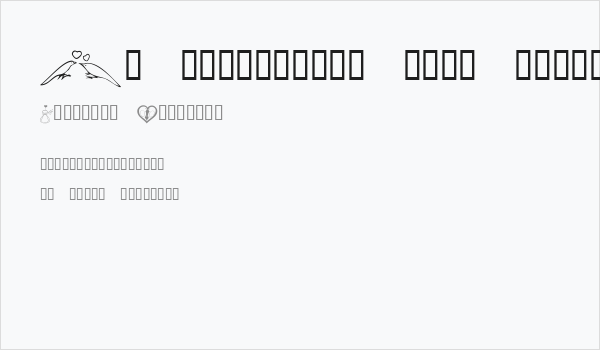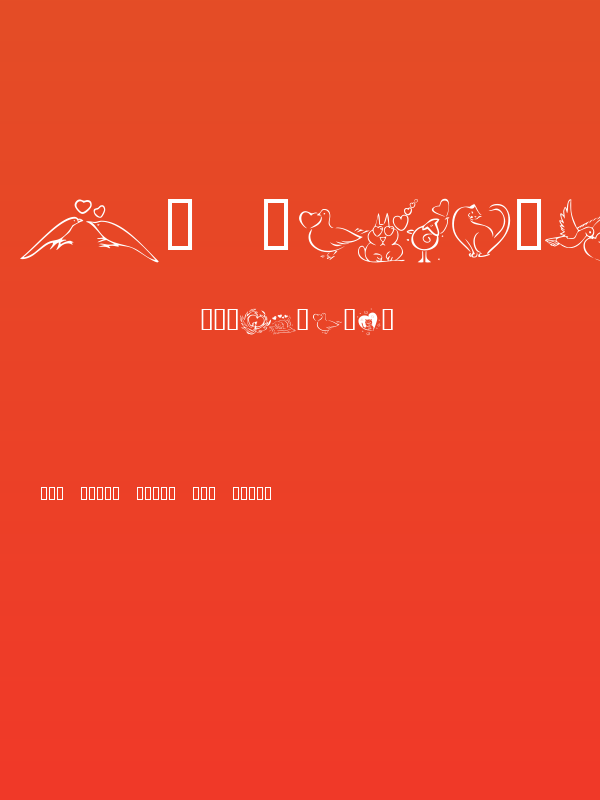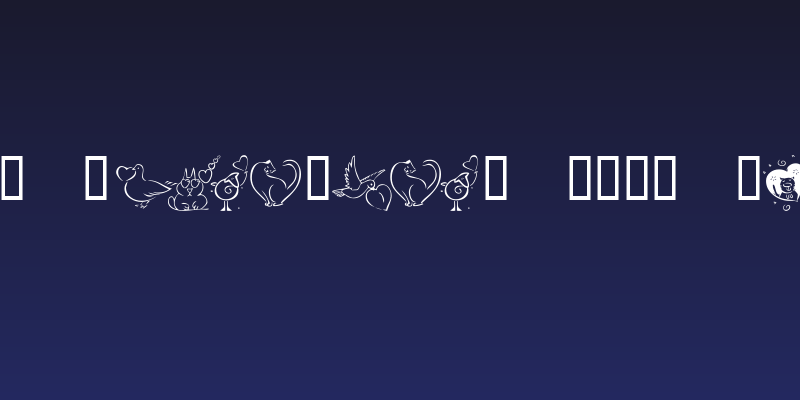
KR Valentines 2006 Three Font
KR Valentines 2006 Three Description
This is a decorative font featuring whimsical and romantic illustrations instead of traditional alphanumeric characters. Each character is represented by a unique design, such as hearts, animals, and other love-themed motifs. The style is playful and artistic, making it ideal for creative projects that require a touch of romance and fun. The designs are intricate and detailed, capturing a sense of whimsy and charm. This font is perfect for Valentine's Day projects, wedding invitations, or any design that aims to convey love and affection in a visually engaging way.
| Use Case | Logos, Headlines, Decorative elements |
| Proposed Projects | Ideal for Valentine's Day cards, wedding invitations, romantic event posters, and love-themed crafts. |